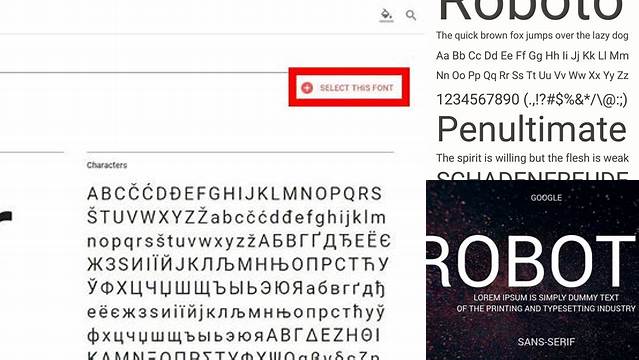
Why Use Roboto Font?
Roboto is a super popular font designed by Christian Robertson for Android. It's clean, modern, and highly legible, making it a great choice for body text and headlines alike. Plus, it's versatile enough to fit a wide range of design styles. Whether you're building a blog, an e-commerce site, or a portfolio, Roboto can add a touch of sophistication to your project. Choosing the right font can significantly enhance the user experience, making your content more engaging and readable.
5. Adding the <link> Tag to Your HTML
Copy the <link> tag and paste it into the <head> section of your HTML document. Make sure it's placed before your own CSS stylesheets so that you can override the default styles if needed. The <head> section is the ideal place for meta-information about your page, including links to stylesheets, scripts, and other resources. Keeping your <head> organized helps improve your site's performance and maintainability.
6. Using the Roboto Font in Your CSS
Now that you've linked the Roboto font, you can use it in your CSS. Here's how:
body {
font-family: 'Roboto', sans-serif;
}
h1, h2, h3 {
font-family: 'Roboto', sans-serif;
font-weight: 700; /* For Bold */
}
In this example, we're setting the font-family of the body element to Roboto. If the browser can't load Roboto for some reason, it will fall back to a sans-serif font. For headings, we're also setting the font-weight to 700 to use the bold version of Roboto. Remember to adjust the font-weight and other font properties to match the styles you selected earlier.
7. Verifying That the Font Is Working
Open your HTML file in a web browser. You should see the text rendered in the Roboto font. If it's not working, double-check that you've correctly copied the <link> tag and that your CSS is correctly targeting the elements you want to style. Sometimes, browser caching can interfere with font loading. Try clearing your browser's cache or using a different browser to see if that resolves the issue.
- Optimize font loading for performance.
- Use responsive typography techniques.